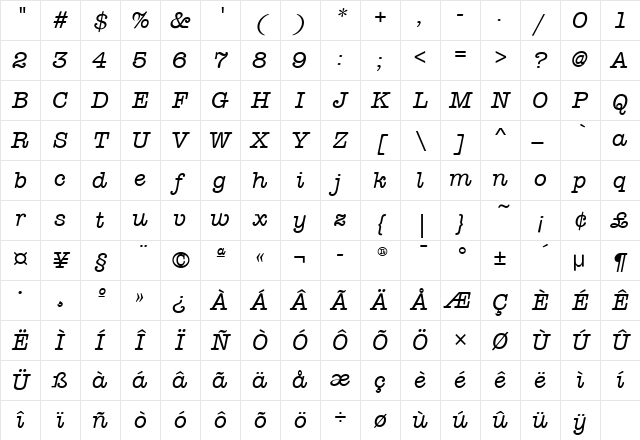
Complete AmTypewriterMdITC Italic glyph index. Displaying only characters natively supported by AmTypewriterMdITC Italic font.
AmTypewriterMdITC uses fixed-width spacing throughout, giving it the structured, systematic character associated with coding environments and technical documentation. The slanted form adds forward momentum and visual energy.